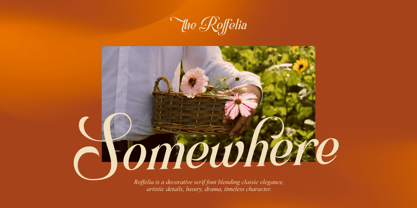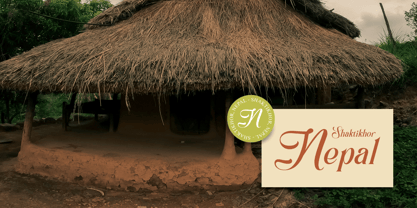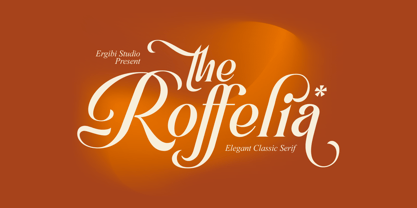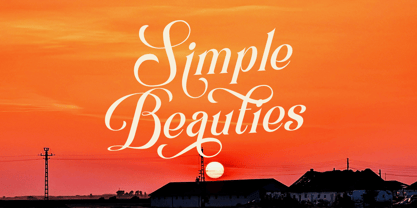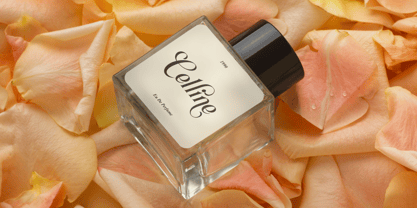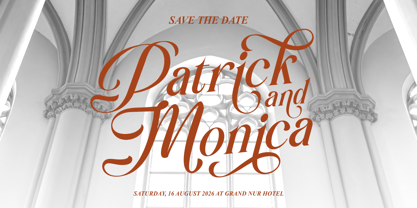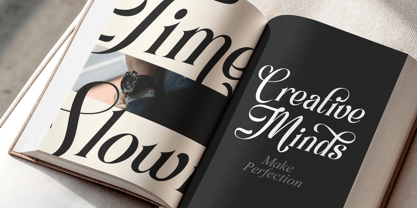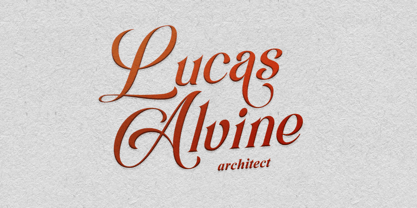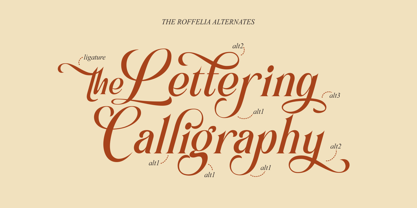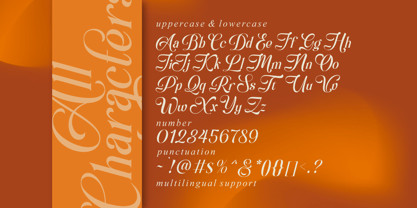
Roffelia
by Ergibi Studio
The Roffelia Font Family was designed by Riyadh Rahman and published by Ergibi Studio. Roffelia contains 1 styles. More about this family
Roffelia is a timeless serif typeface that embodies elegance, balance, and classic sophistication. Designed with refined proportions and subtle contrast, Roffelia delivers a graceful presence that feels both traditional and modern. Its carefully crafted letterforms feature smooth curves, clean serifs, and a harmonious structure—making it highly versatile for a wide range of design needs. Roffelia brings a sense of luxury and professionalism, perfect for projects that require a polished and enduring visual identity. Whether used for branding, editorial layouts, packaging, or headlines, Roffelia stands out with its quiet confidence and classic charm. if you have any questions, don’t hesitate to contact us Ergibi Studio